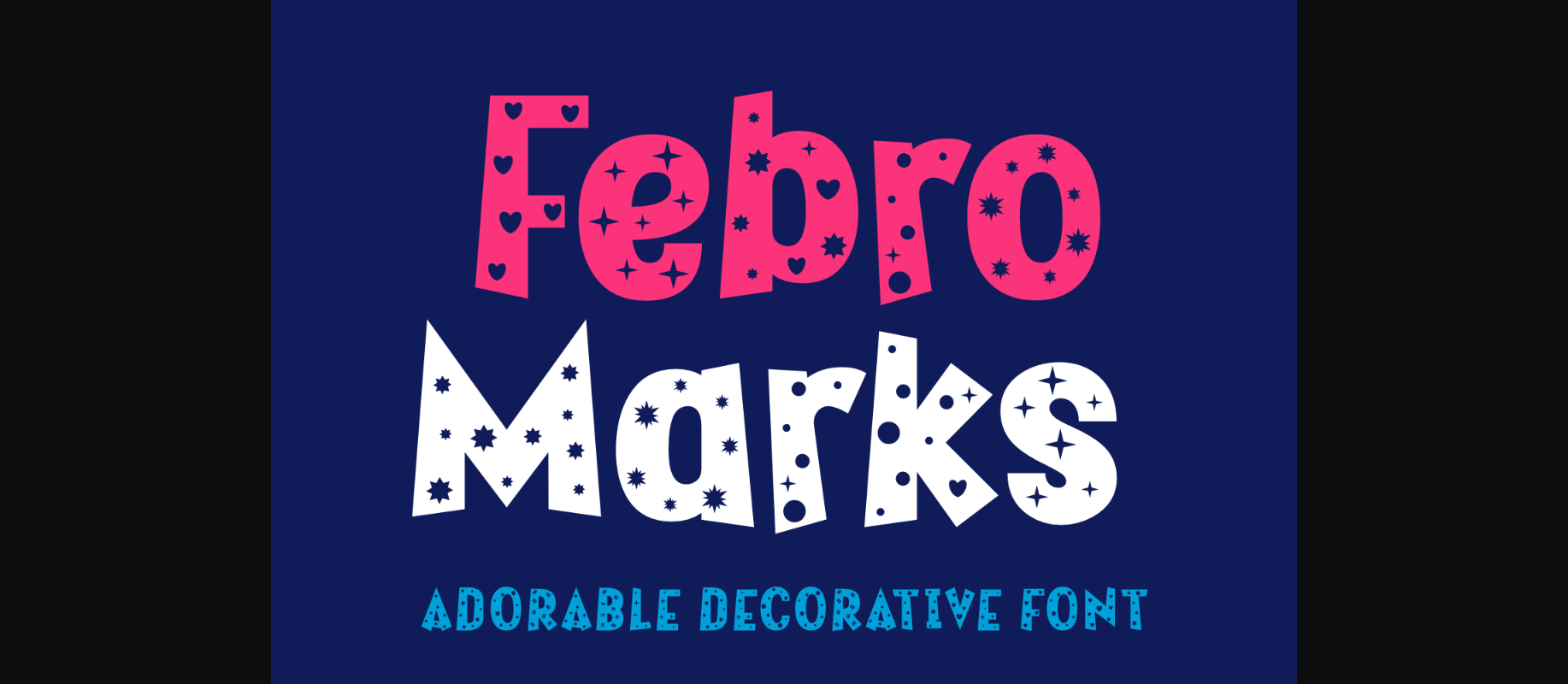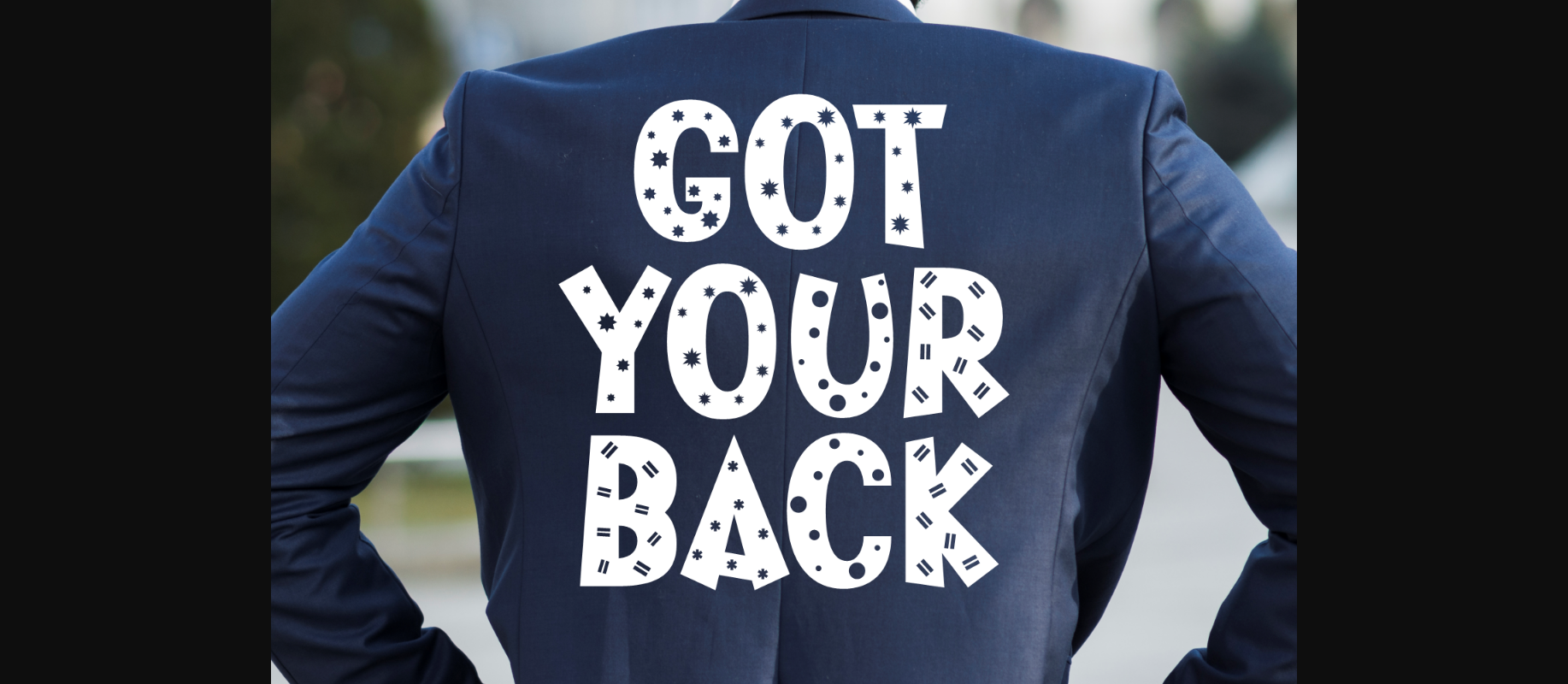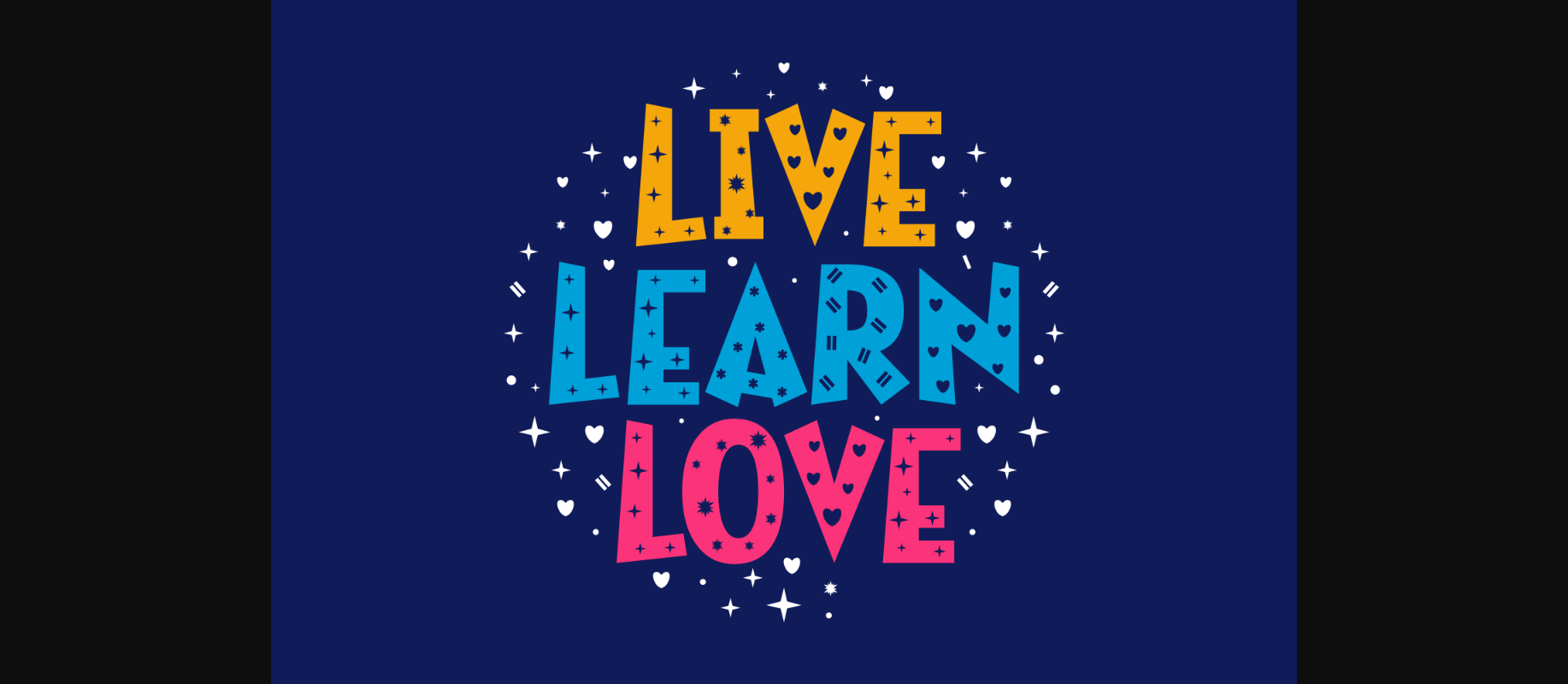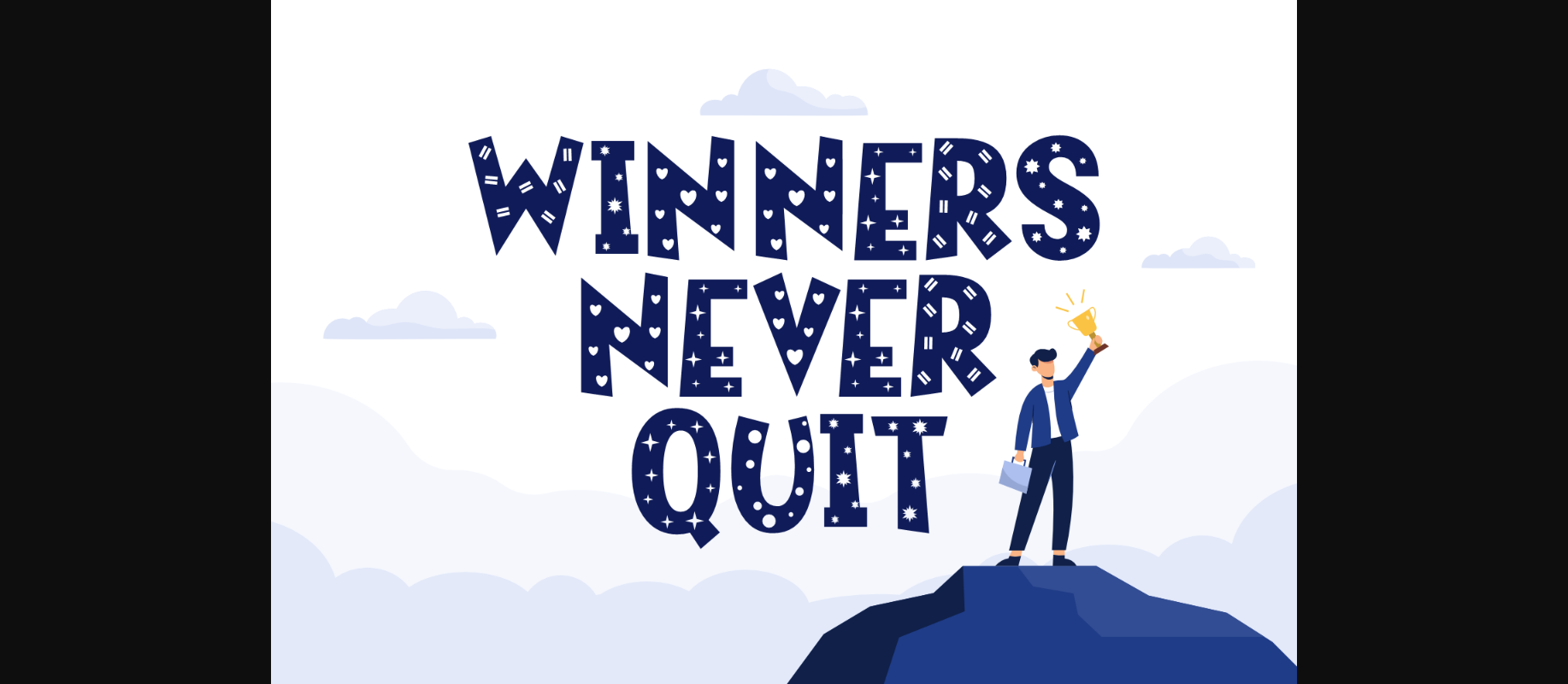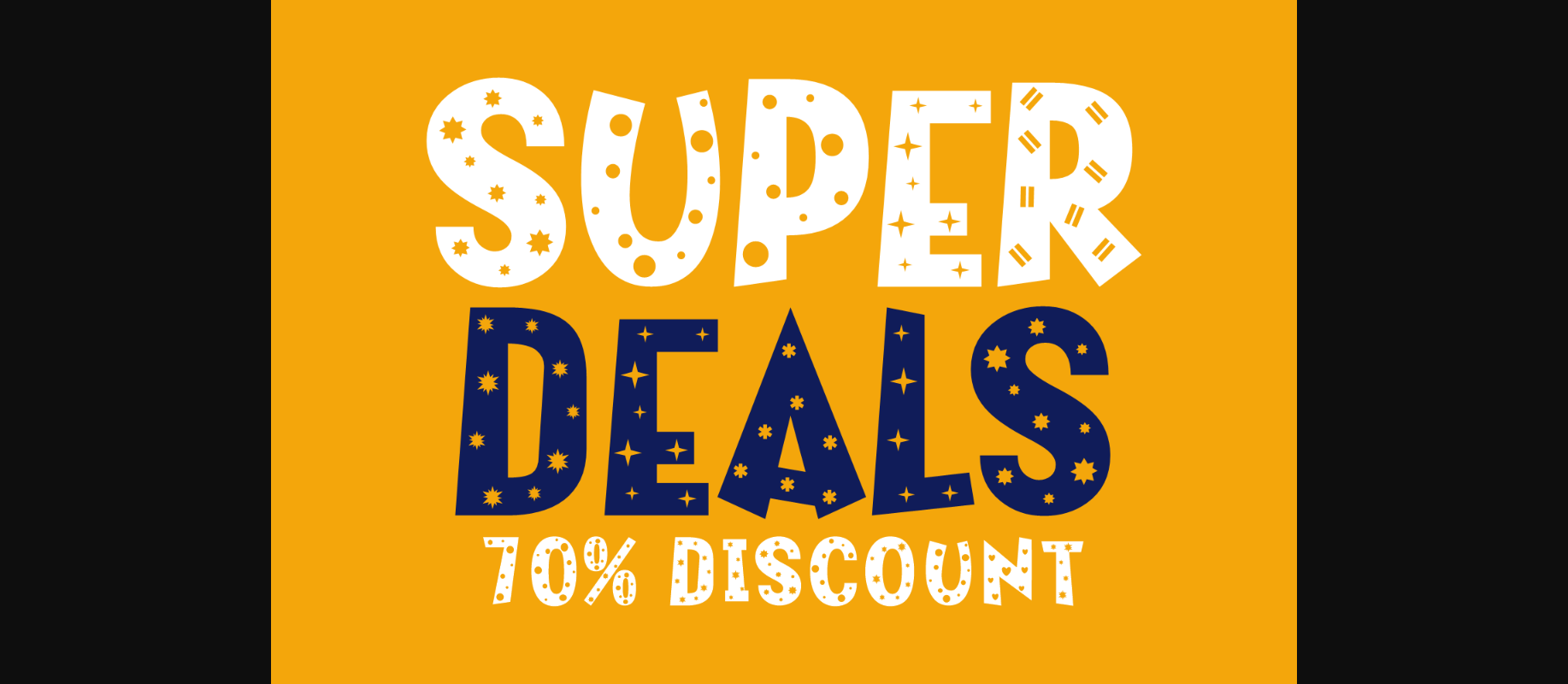
About Febro Marks Font
Febro Marks is a modern font paired with decorative elements, that makes a classy aesthetic. Use it for invitations, branding, and more. This font is perfect for posters, greeting cards, t-shirts, branding materials, quotes and any other amazing projects you are working on.